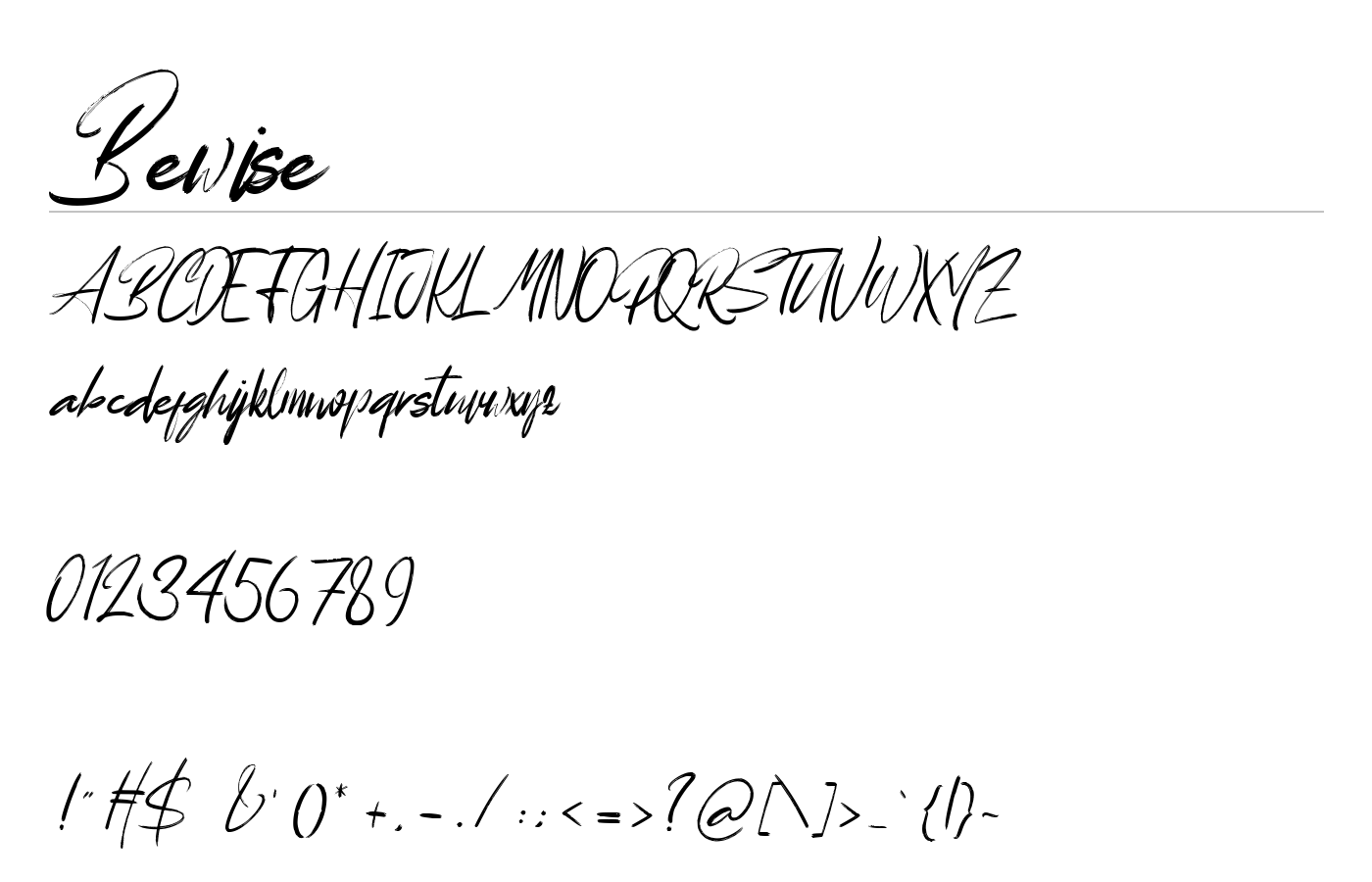
Bewise is a dynamic script font that showcases a hand-drawn, brush-like style with elegant, flowing strokes and varying line thicknesses. It conveys a sense of creativity and sophistication, making it ideal for design projects that seek a personal, artistic touch such as logos, invitations, and fashion branding. Its lively yet refined character works well in expressive headlines or decorative uses where a casual yet stylish feel is desired.
Bewise Font
About Bewise Font
| Font family | Bewise Font |
| Designer | Inspiratype |